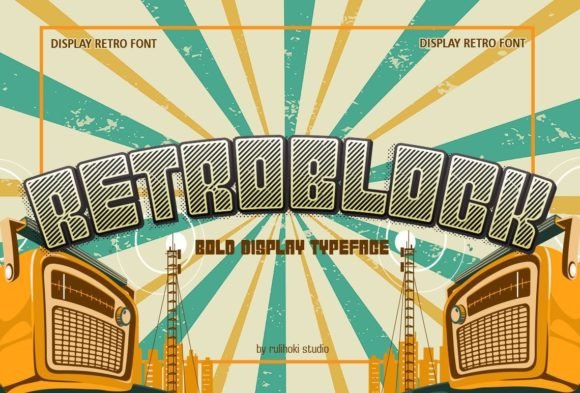
Embark on a typographic journey through time with Retroblock, a captivating display font that exudes nostalgia and timeless appeal. Designed by the skilled artisans at rulihoki studio, this bold and spectacular font carries the weight of history, evoking memories of classic label printing and vintage signage.
With its strong and confident strokes, Retroblock commands attention, demanding to be seen and admired. This dynamic font adds a touch of playfulness and energy to your designs, infusing them with a sense of nostalgia that resonates with audiences of all ages.
Unleash your creativity and let Retroblock take center stage in your projects. Its eye-catching curves and sharp angles create a visual symphony that captivates and engages. Whether crafting logos, posters, packaging, or social media graphics, Retroblock adds an incredibly joyful touch, transforming ordinary designs into extraordinary masterpieces.
Embrace the charm of Retroblock and watch as your creations come to life with a vibrant personality and distinct character. This remarkable font is more than just a visual element; it's a storytelling tool that evokes emotions and sparks conversations.
Join the ranks of savvy designers who have discovered the magic of Retroblock. Add this beautiful display font to your creative arsenal and witness the transformation it brings to your work. Prepare to be amazed as your designs transcend the ordinary, leaving a lasting impression on all who encounter them.